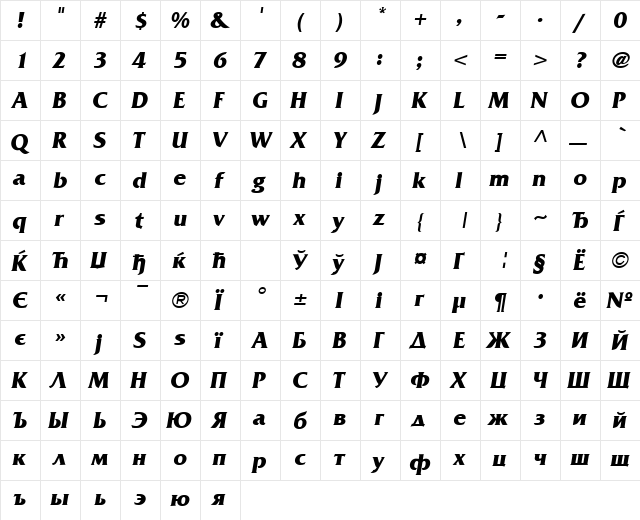
AGFriquer BoldOblique
Design Context for AGFriquer Typeface
AGFriquer takes a measured approach to typography — its balanced proportions and neutral character make it a reliable workhorse for both digital and print work. Its italic angle brings a sense of urgency and motion to the letterforms. The heavy weight commands attention and anchors typographic hierarchies.
Pro Tip: Use AGFriquer for emphasis, pull quotes, and subheadings where its slanted energy can add rhythm to the layout.